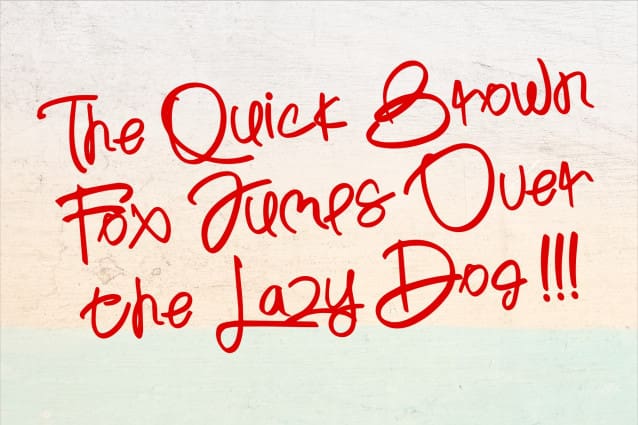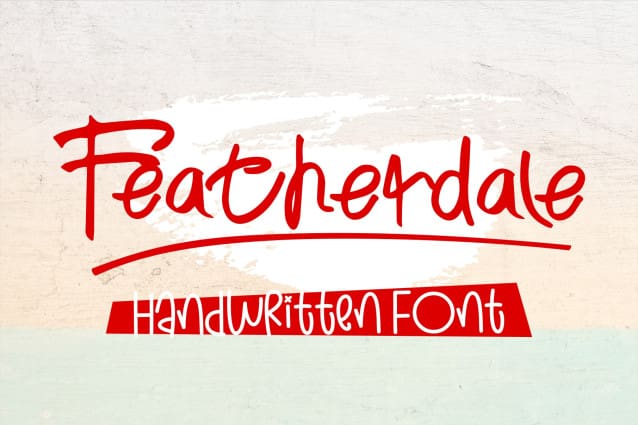
Featherdale Script Font
Featherdale Script Font, exquisite handwritten font, a perfect blend of elegance and artistic charm. This font captures the essence of traditional calligraphy with its graceful curves and flowing strokes, making it an ideal choice for a wide range of creative projects.
Embrace the beauty of handwritten and elevate your design projects with our exquisite font. Perfect for adding a sophisticated and personal touch to your work, this font is a must-have for designers, artists, and anyone with a passion for beautiful typography.